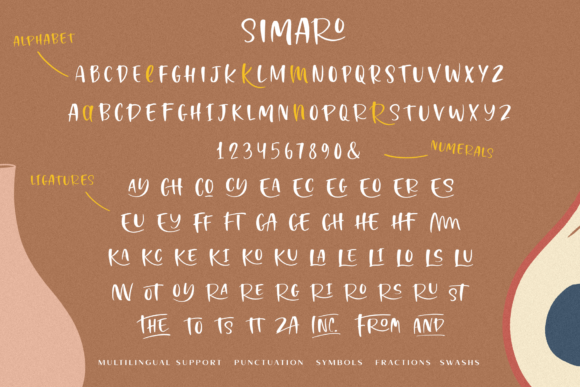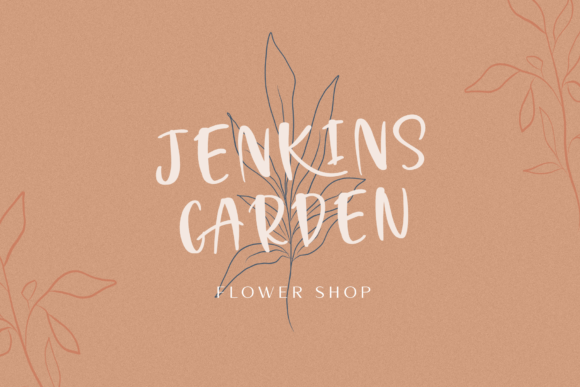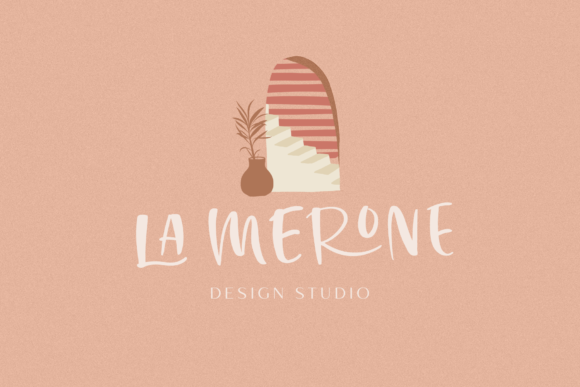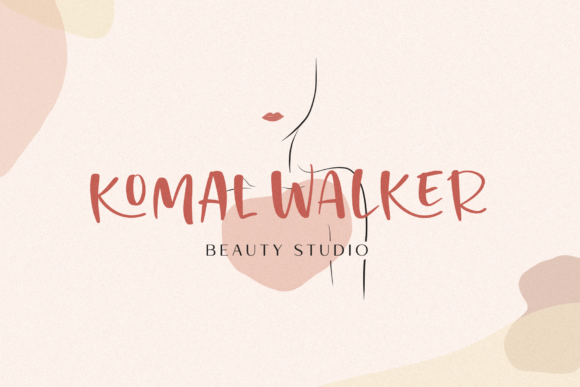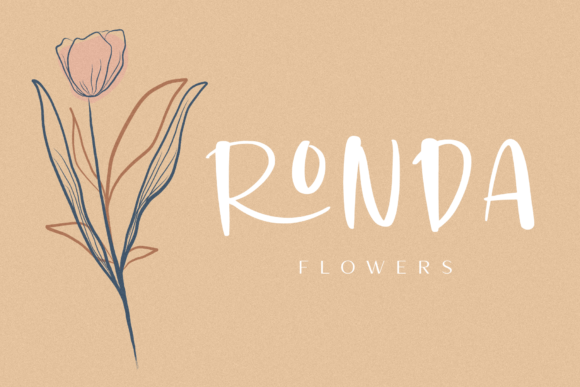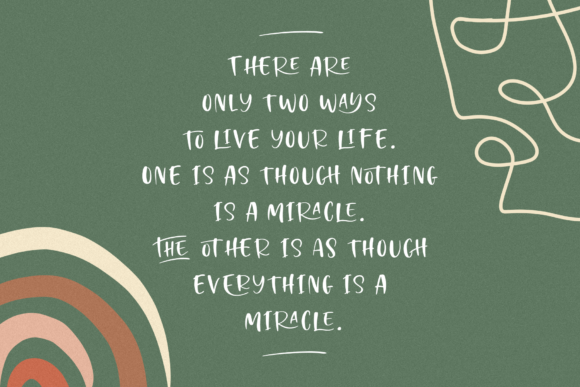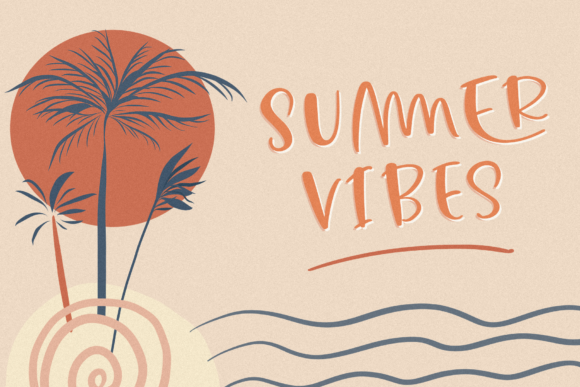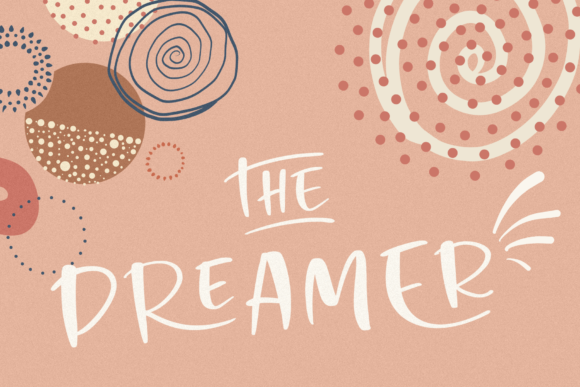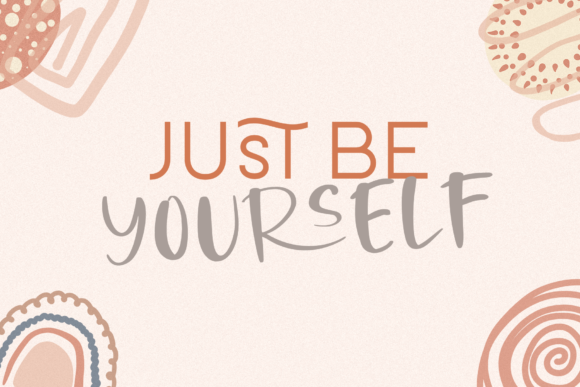
Simaro Font
About Simaro Font
Simaro is a cute and quirky handwritten font. It is PUA encoded which means you can access all of the glyphs and swashes with ease! It features a varying baseline, smooth lines, gorgeous glyphs and stunning alternates. Fall in love with its incredibly relaxed style and use it to create spectacular designs!